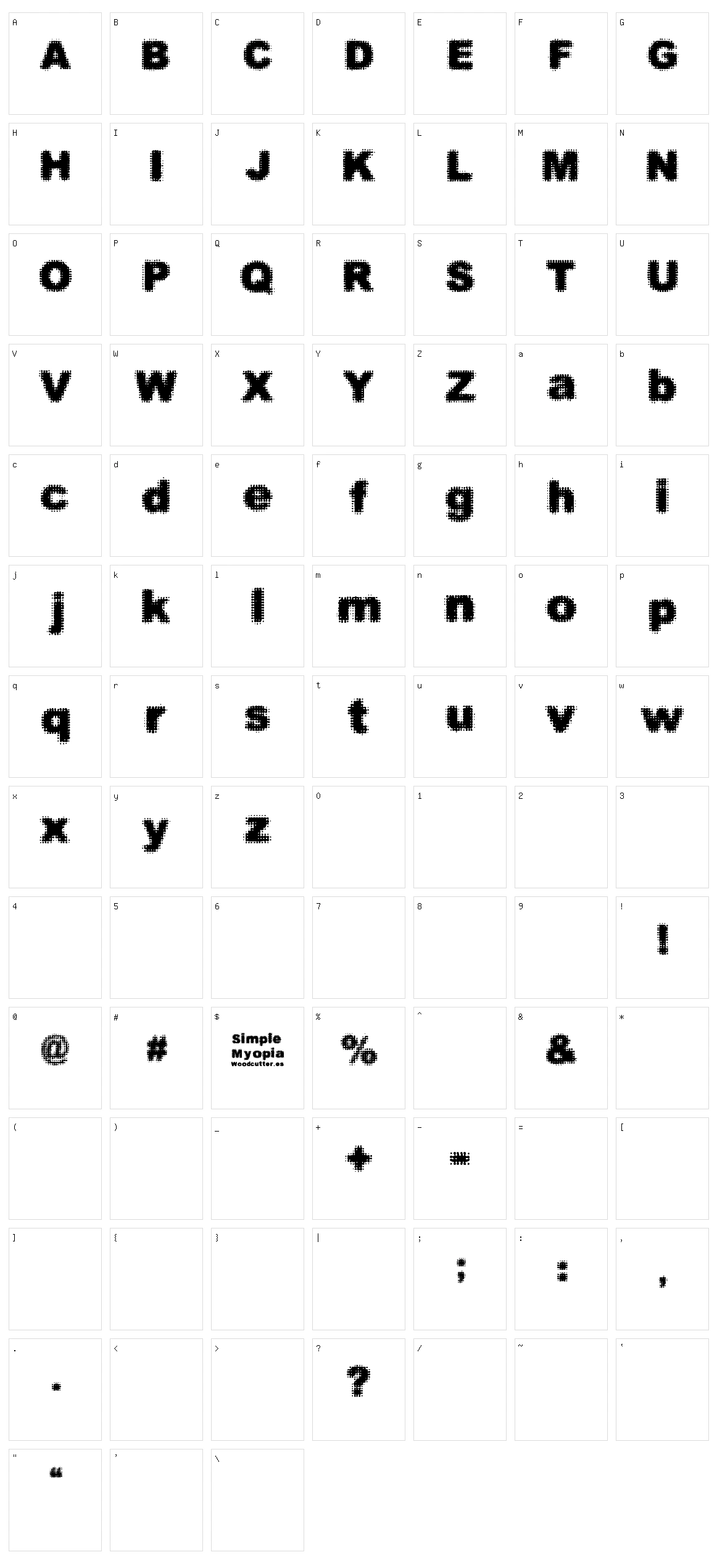
The free font Simple Myopia is carefully designed by Woodcutter, showcasing a thoughtful balance of creativity and usability and falls under the Distorted font style. When you download the ZIP file, it contains only 71.15 KB of font files, making it lightweight and quick to download. Please review the license details below to understand permitted usage and distribution rights. If license information is not available, we recommend using this font for personal projects only or contacting the author directly for commercial usage permissions.